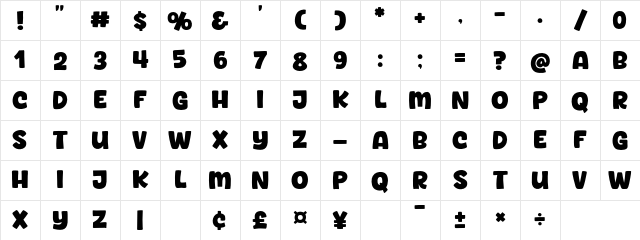
Savory Curry Regular
Foundry: Khurasan & Jalembe
Designer: Khurasan & Jalembe
Design Context for Savory Curry
Savory Curry is a composed and adaptable typeface that performs quietly and consistently across a wide range of design contexts.